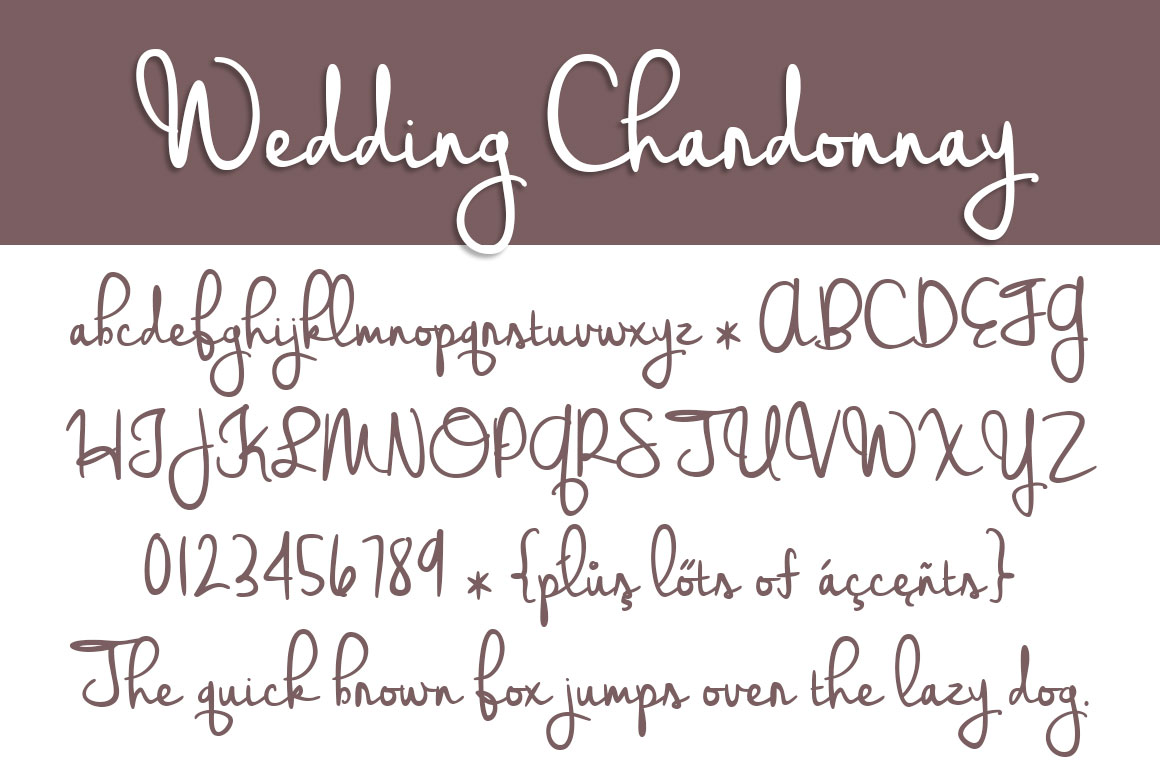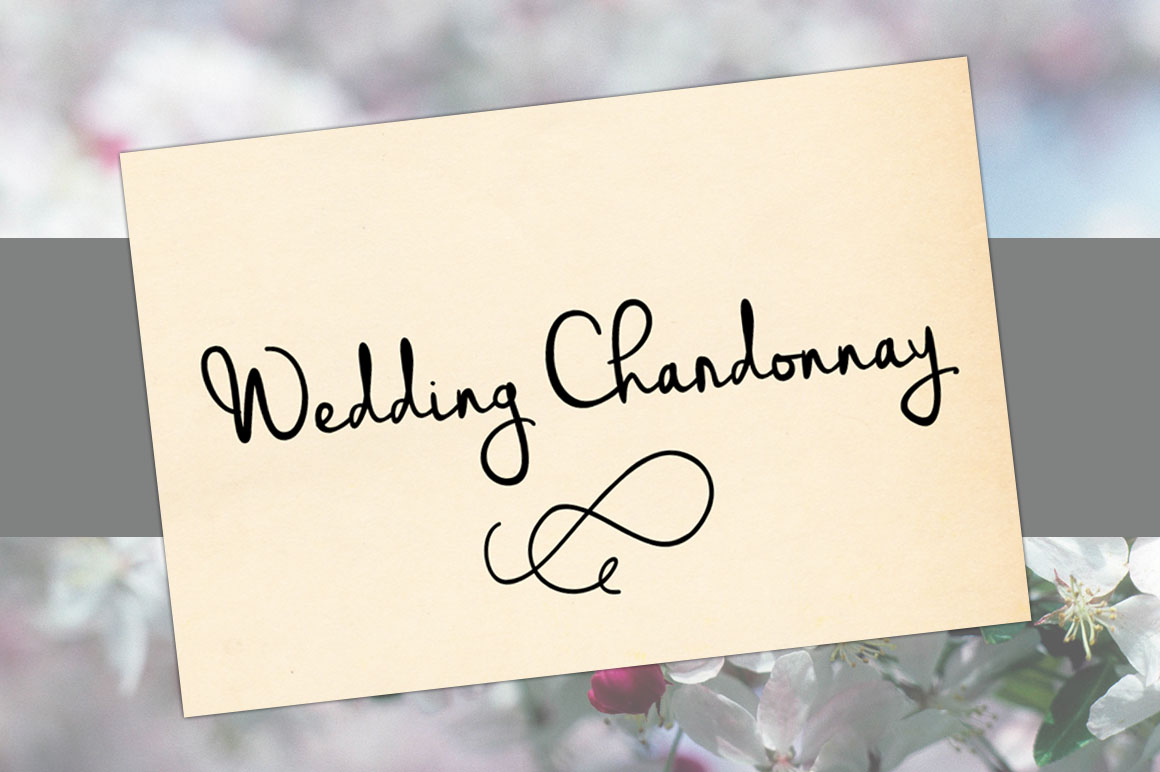
Wedding Chardonnay Font
Introducing Wedding Chardonnay Font! Wedding Chardonnay designed and shared by brittneymurphydesign. Wedding Chardonnay is a lovely handwritten font perfect for signatures and logos to give it a feminine touch.